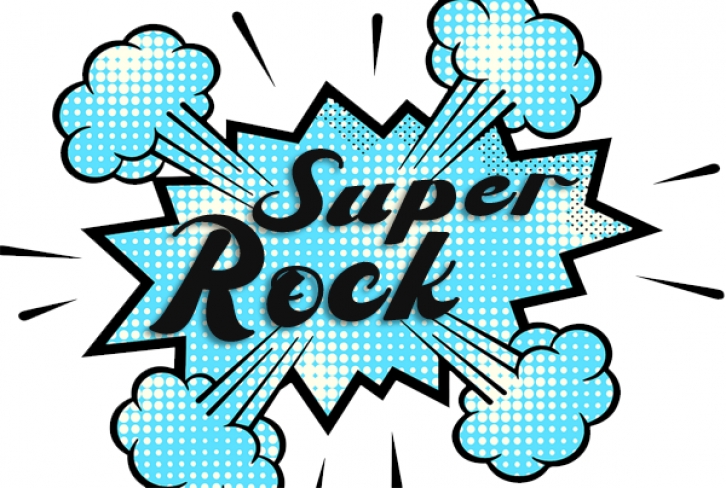
Super Rock is a delicate and sweet calligraphy typeface with characters that dance along the baseline. It will add a luxury spark to any design project that you wish to create.